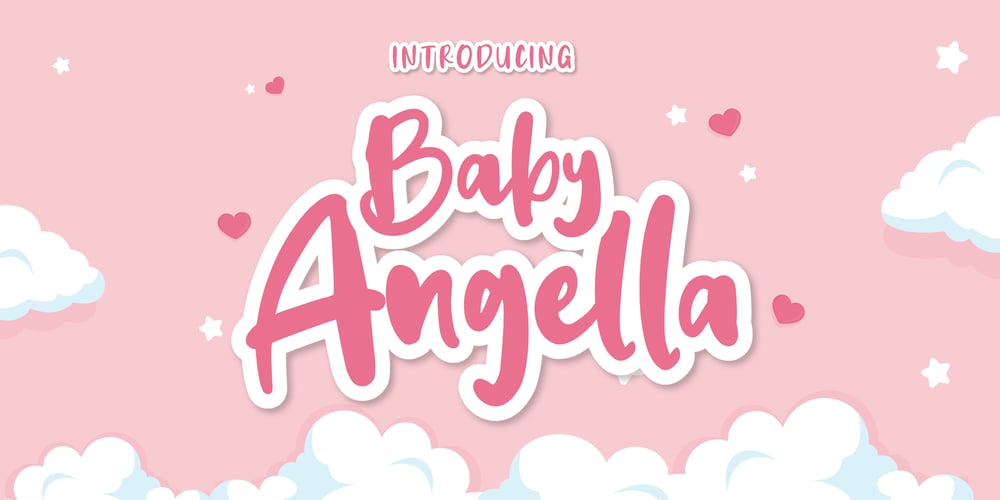
Baby Angella Font Family was designed by Hasna Viola and published by Violatype. Baby Angella contains 1 styles and family package options. Baby Angella is a cute and charming handwritten font. It will add an incredibly joyful touch to your designs. Add this beautiful handwritten font to each of your creative ideas and notice how it makes them stand out!Baby Angella font is perfect for logos, wedding invitations, clothes, souvenirs, magazines, quotes, crafts, and more, please try it yourself and perfect your design.